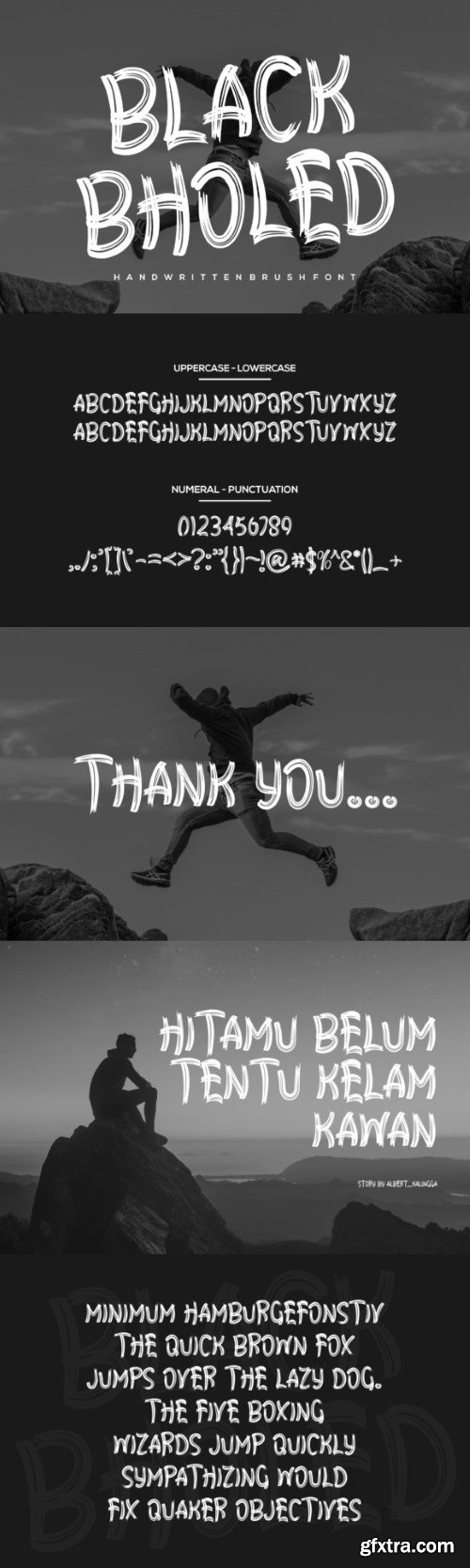
黑色洞穴字体
Black Bholed Font
Black Bholed is a sweet and friendly handwritten brush font. Its natural and unique style makes it incredibly fitting to a large pool of designs. The only limit is your imagination!